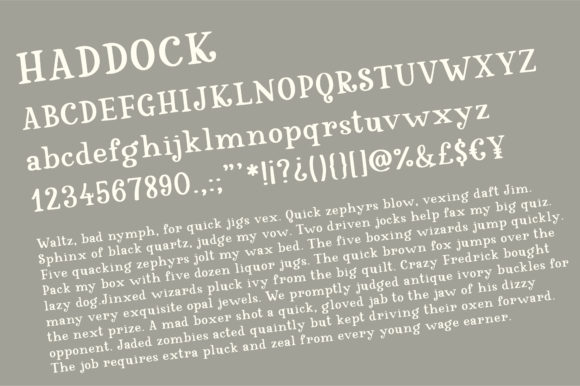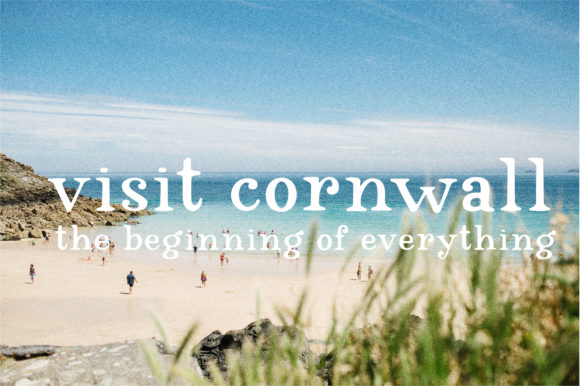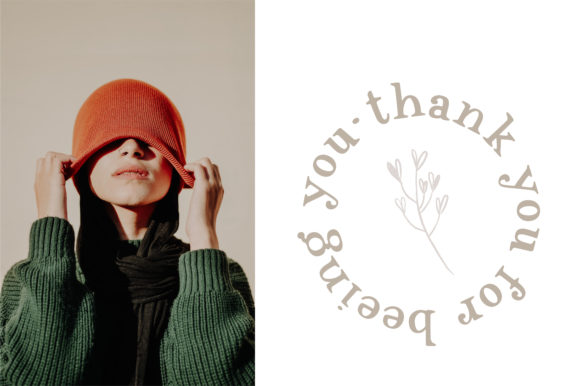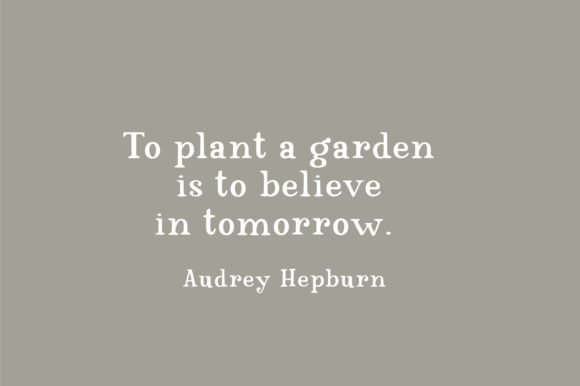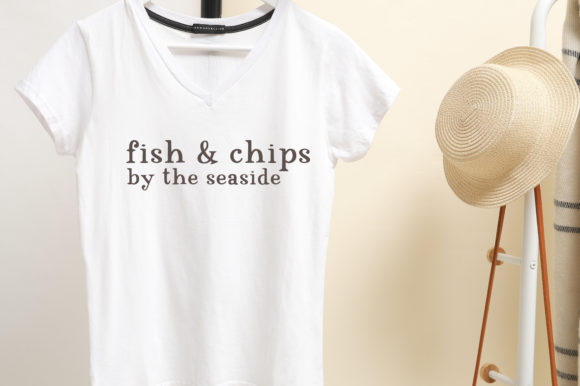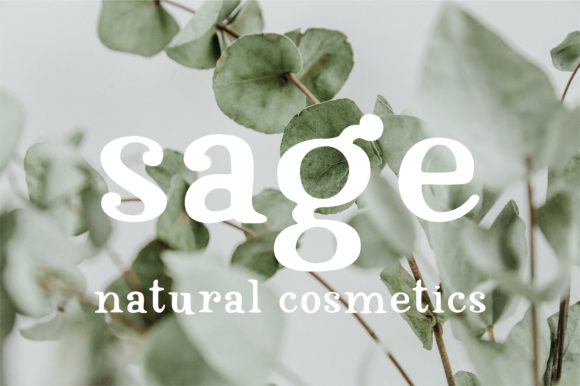
Haddock Font: The Fun and Unique Serif Font for Your Creative Projects
Are you tired of using the same old boring fonts for your creative projects? Look no further than the Haddock Font! This fun and uniquely designed serif font is perfect for adding a touch of personality to your blog posts, logos, branding, ads, invitations, greeting cards, planners, photo albums, decorations, and much more.
What is Haddock Font?
Haddock Font is a serif font that stands out from the crowd with its distinctive design. Its unique features make it an excellent choice for designers and crafters who want to add a personal touch to their work. Whether you’re creating a logo, a brochure, or a social media post, Haddock Font is sure to make your project stand out.
Features of Haddock Font
- Unique Design: Haddock Font has a one-of-a-kind design that will set your project apart from others.
- Serif Style: The font features a classic serif style that adds a touch of elegance to your work.
- Fun and Playful: Despite its elegance, Haddock Font has a fun and playful vibe that’s perfect for creative projects.
- Versatile: You can use Haddock Font for a wide range of projects, from blog posts and logos to invitations and decorations.
Uses of Haddock Font
So, what can you use Haddock Font for? The possibilities are endless! Here are some ideas to get you started:
- Blog Posts: Add a personal touch to your blog posts with Haddock Font.
- Logos and Branding: Create a unique logo and brand identity with Haddock Font.
- Ads: Make your ads stand out with Haddock Font’s playful and eye-catching design.
- Invitations and Greeting Cards: Add a touch of personality to your invitations and greeting cards with Haddock Font.
- Planners and Photo Albums: Create beautiful planners and photo albums with Haddock Font.
- Decorations: Use Haddock Font to create stunning decorations for your home or office.
Benefits of Using Haddock Font
So, why should you choose Haddock Font for your creative projects? Here are some benefits:
- Stand Out: Haddock Font will help your project stand out from the crowd.
- Personal Touch: Add a personal touch to your work with Haddock Font’s unique design.
- Easy to Read: Despite its unique design, Haddock Font is easy to read and understand.
- Versatile: You can use Haddock Font for a wide range of projects.
Tips for Using Haddock Font
Here are some tips for using Haddock Font effectively:
- Use it Sparingly: Use Haddock Font sparingly to make it more effective.
- Pair it with Other Fonts: Pair Haddock Font with other fonts to create a unique and interesting design.
- Experiment with Sizes: Experiment with different sizes to find the perfect fit for your project.
In conclusion, Haddock Font is a fun and uniquely designed serif font that’s perfect for adding a personal touch to your creative projects. With its unique design, versatility, and ease of use, Haddock Font is a great choice for designers and crafters. So, why settle for boring fonts when you can use Haddock Font to make your project stand out?
Get creative with Haddock Font and take your projects to the next level!